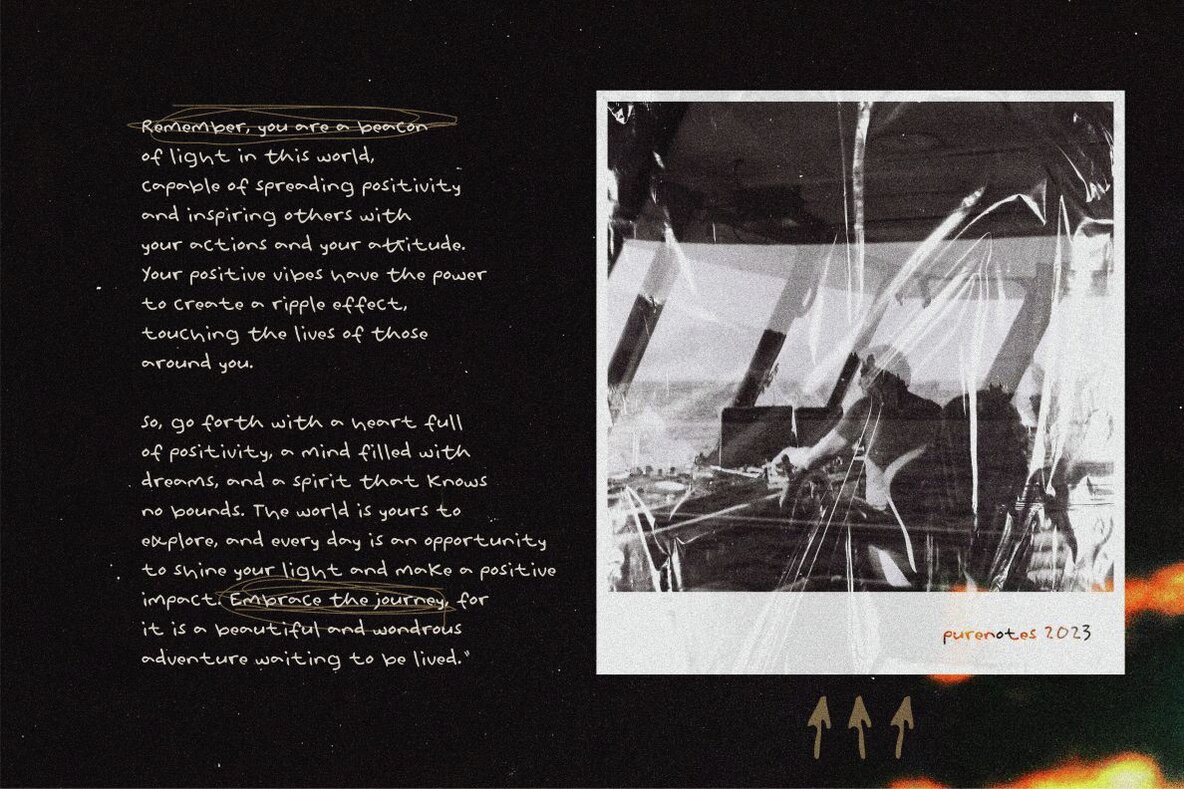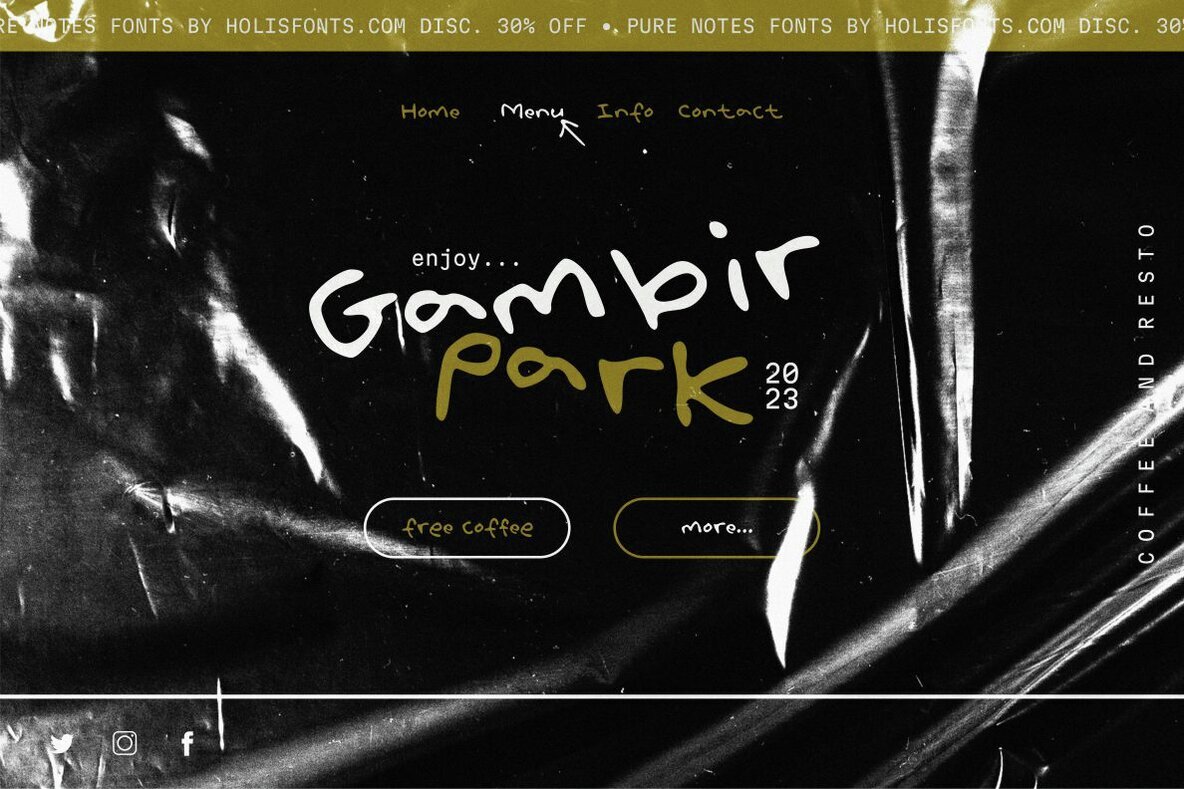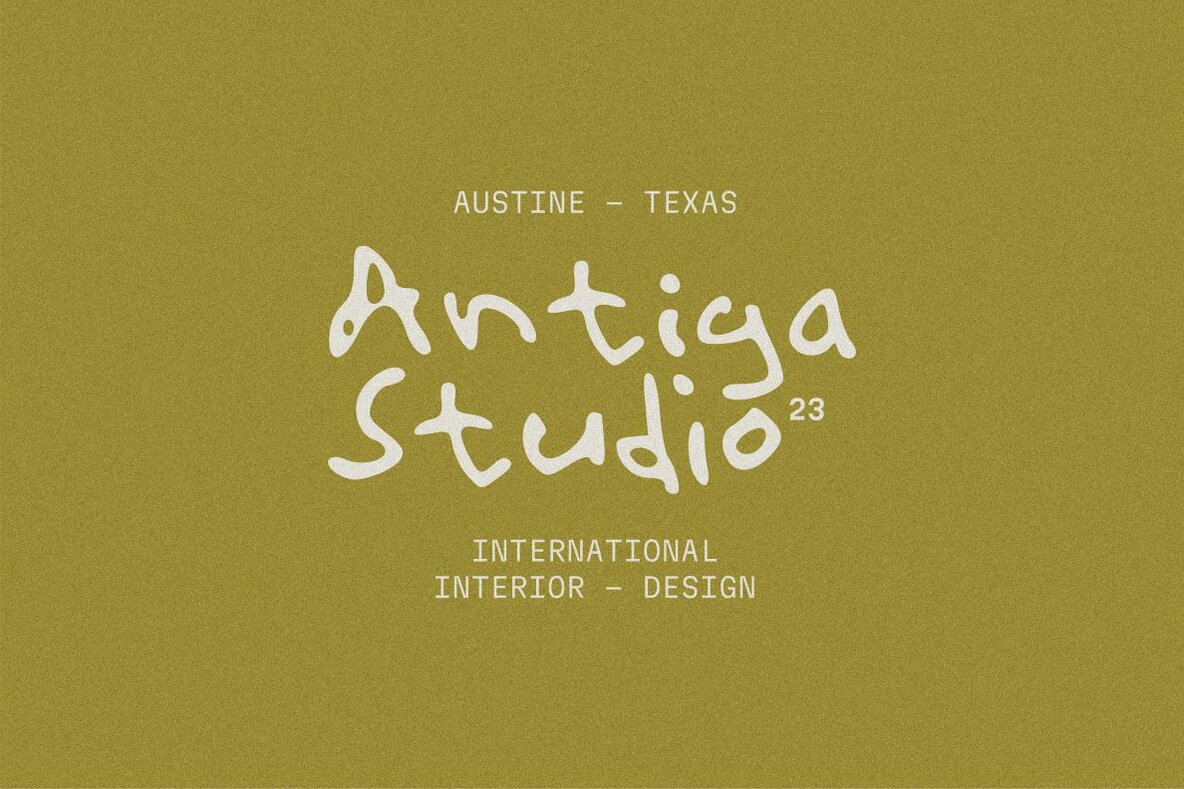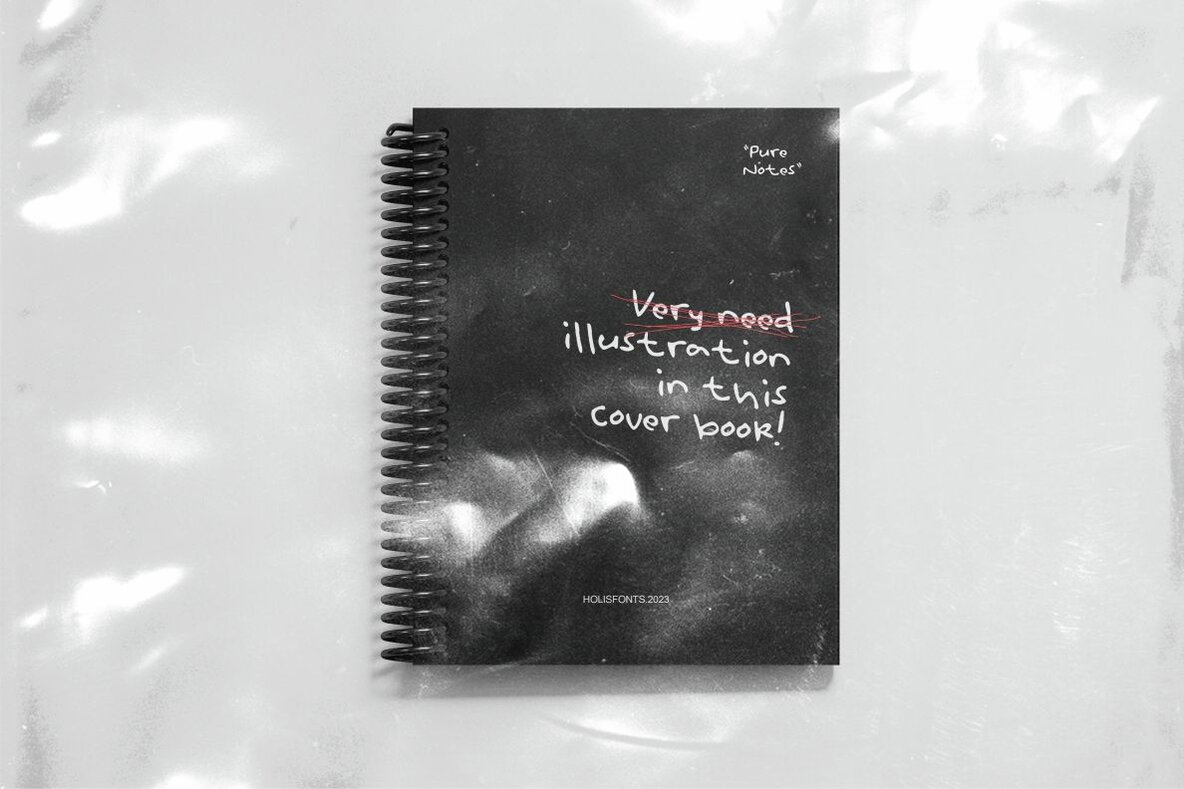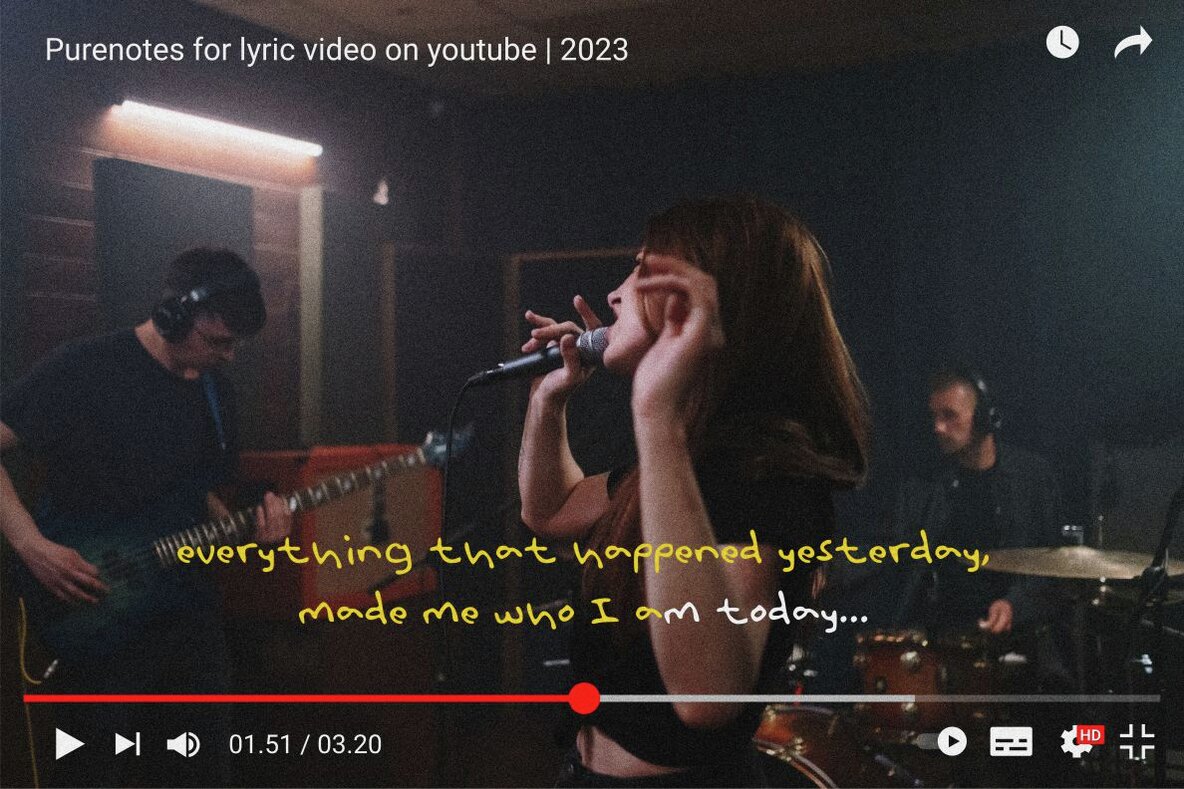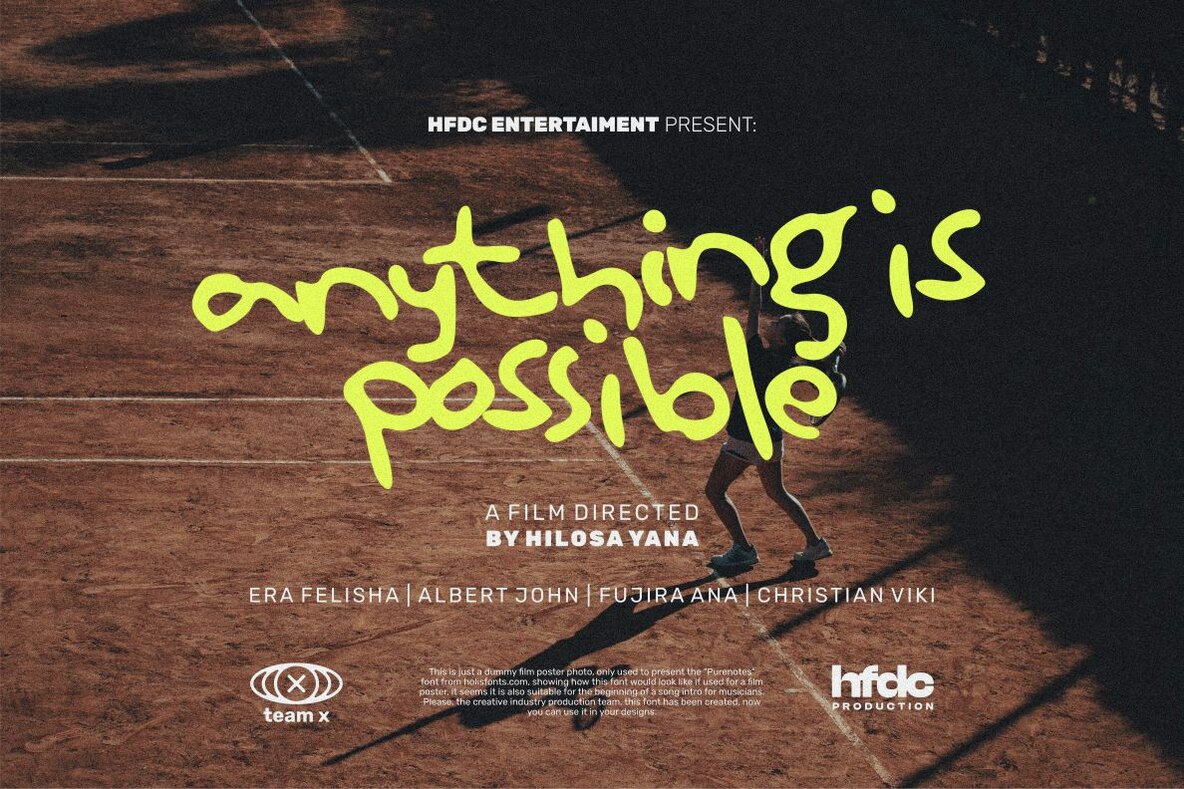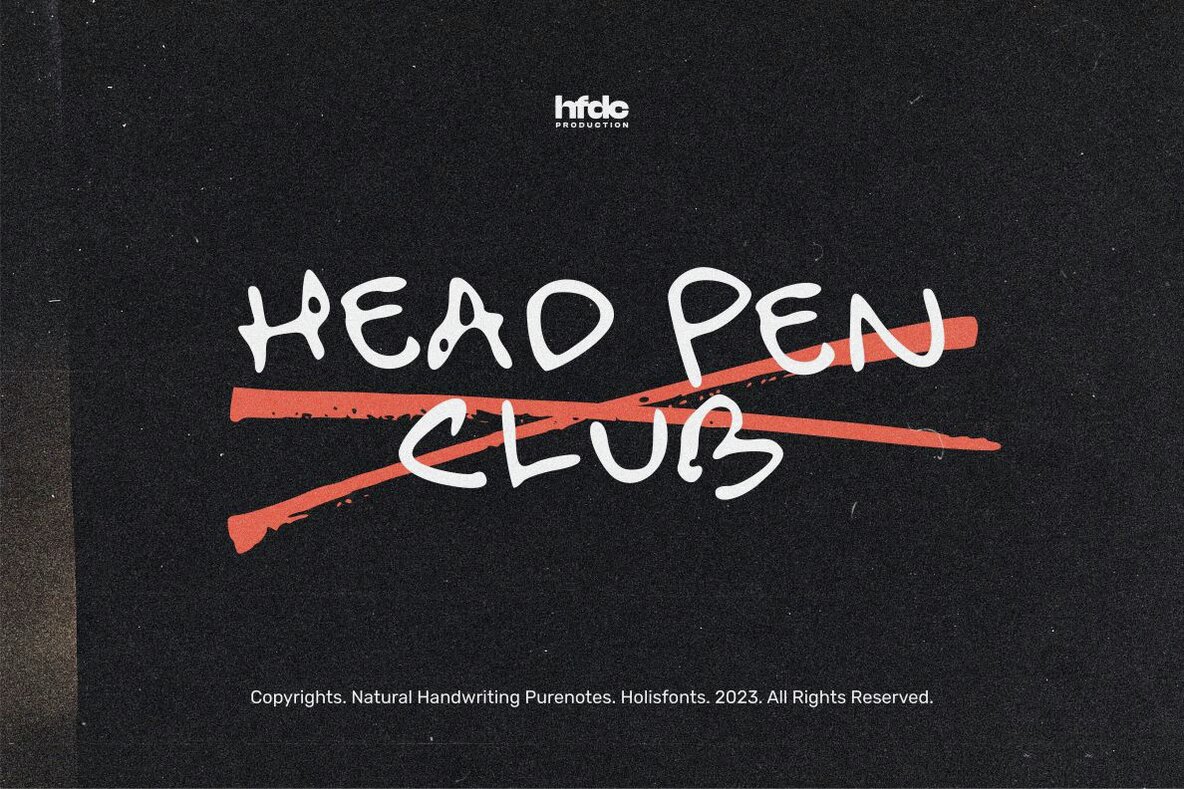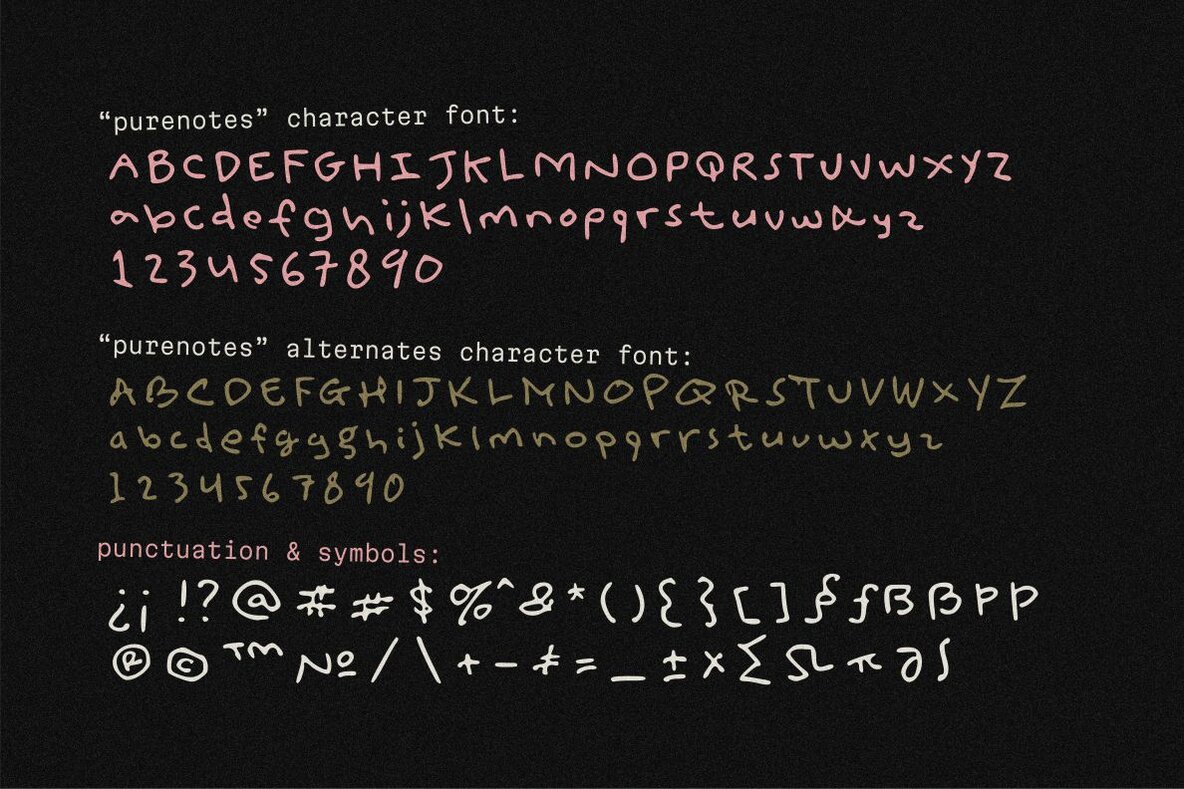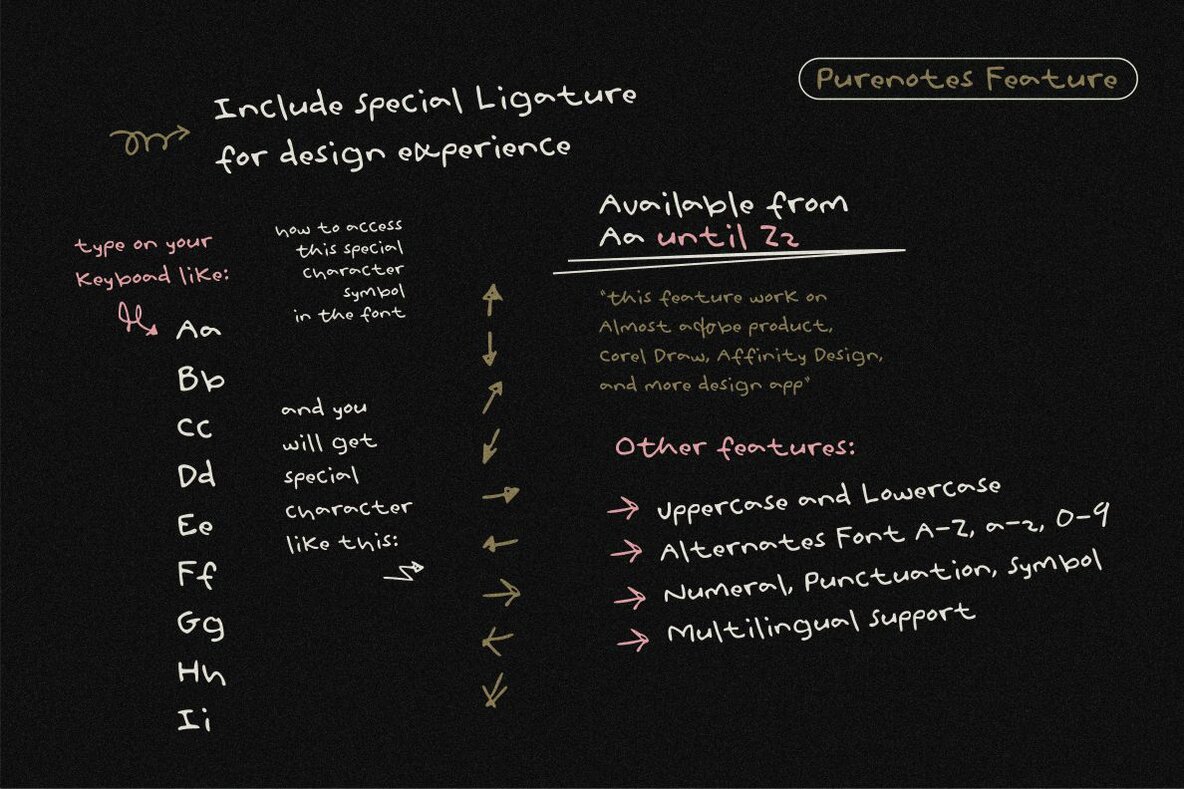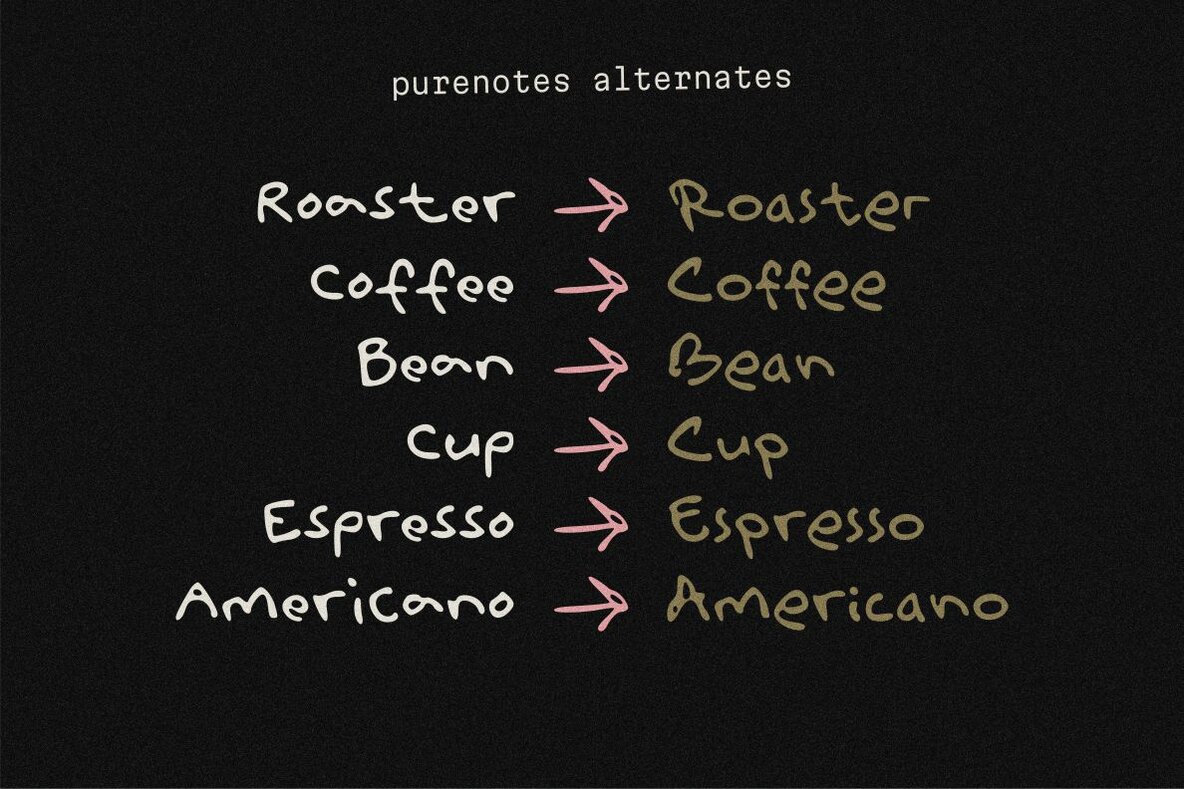
Purenotes Font
Purenotes Regular
Purenotes is a cool and funny handwritten font, made as natural as possible in human handwriting which is suitable for use for quotes on Instagram, Pinterest, Tik Tok and other social media, you can also use it as a lyric video that you will upload on YouTube. You will get a natural feel in your design.